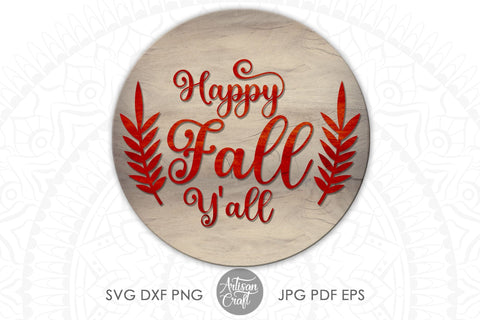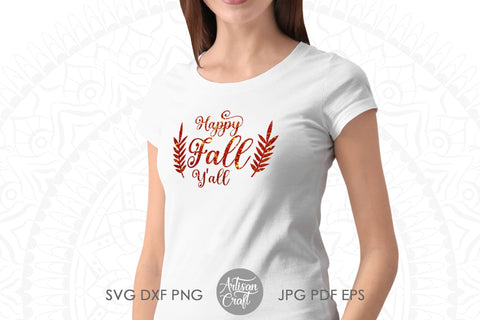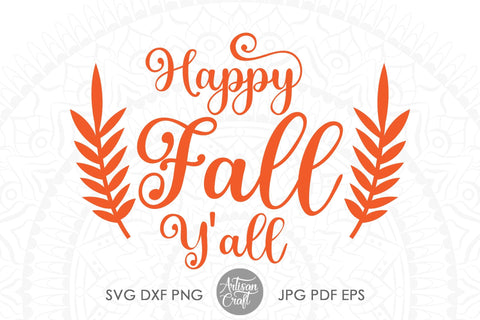
Happy fall Y'all SVG cut file for laser and die cutting
The Happy fall Y'all design SVG files are ready for laser and die cutting. The SVG files can be used in laser cutting machines to make round door signs or porch sings. The artwork shows playful typography and wreath of leaves. A PNG file is also being included in the bundle and PNG files can be used to make sublimation products such as T shirts for fall or mugs.